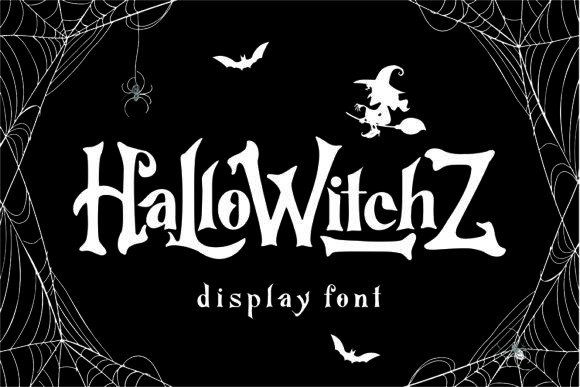
In a realm where creativity thrives and imagination reigns supreme, behold the enchanting HalloWitchZ Font, a remarkable display font conjured by the creative minds at Mozatype. This font is not merely a collection of letters; it's a gateway to a world of Halloween-inspired wonder, inviting you to unleash your inner artist and create designs that cast a spellbinding charm.
Picture this: you're planning a Halloween party, and you want to send out invitations that leave your guests spellbound. With HalloWitchZ Font, you can craft invitations that are as unique and enchanting as the holiday itself. The font's playful and spooky characters will transport your guests to a world of magic and mystery, setting the stage for an unforgettable celebration.
ButHalloWitchZ Font's magic isn't limited to party invites. This versatile font can add a touch of spooky elegance to any creative project. Use it to design Halloween-themed posters, flyers, social media graphics, or even custom t-shirts. The possibilities are endless, bound only by your imagination.
With HalloWitchZ Font, you'll have the power to capture the essence of Halloween in your designs, creating visuals that resonate with the spirit of this beloved holiday. Whether you're a seasoned designer or just starting, this font will be your trusty companion, helping you create designs that are both eye-catching and memorable.
So, embrace the magic of HalloWitchZ Font and let your creativity run wild. With this font, you'll have the power to cast a spell on your audience, captivating their attention and leaving them spellbound. Unleash your inner artist and create designs that will haunt their dreams and leave them craving more.